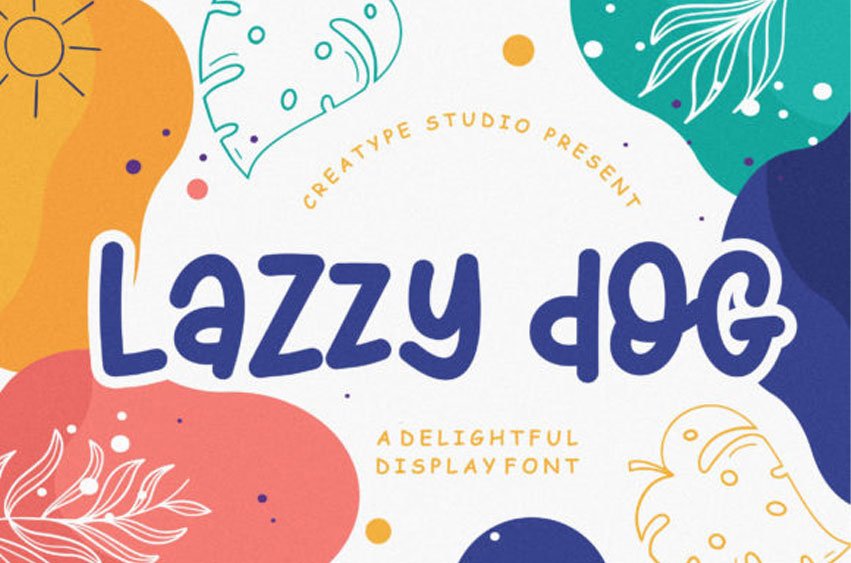
Lazzy Dog Font
Lazzy Dog Font is a delightful display font. It embodies playfulness and authenticity and is the perfect choice for any children activity or school project.